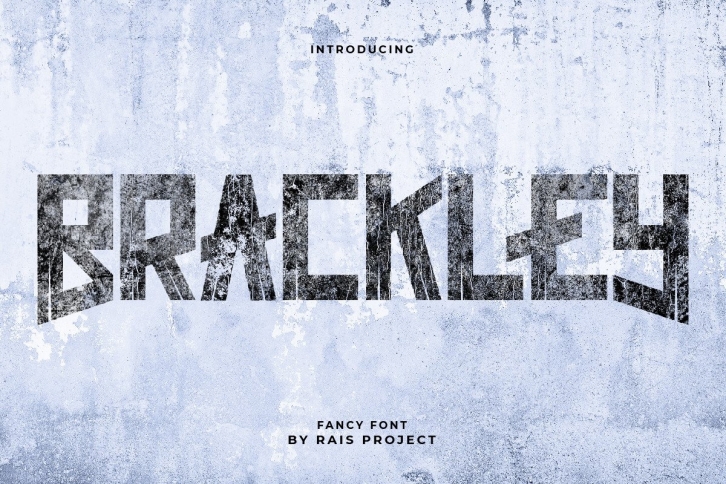
Brackley is a thick lettered display font. It is suitable for designs such as t-shirts, sportswear, logos, advertisements, clothing, and more. Brackley is PUA encoded which means you can access all glyphs and swashes with ease!